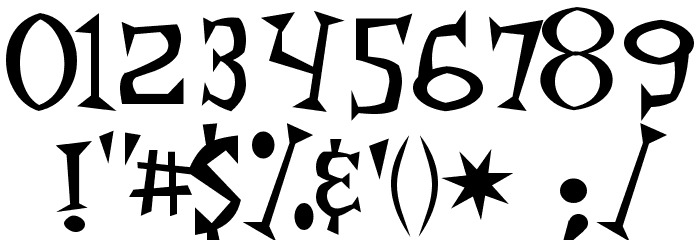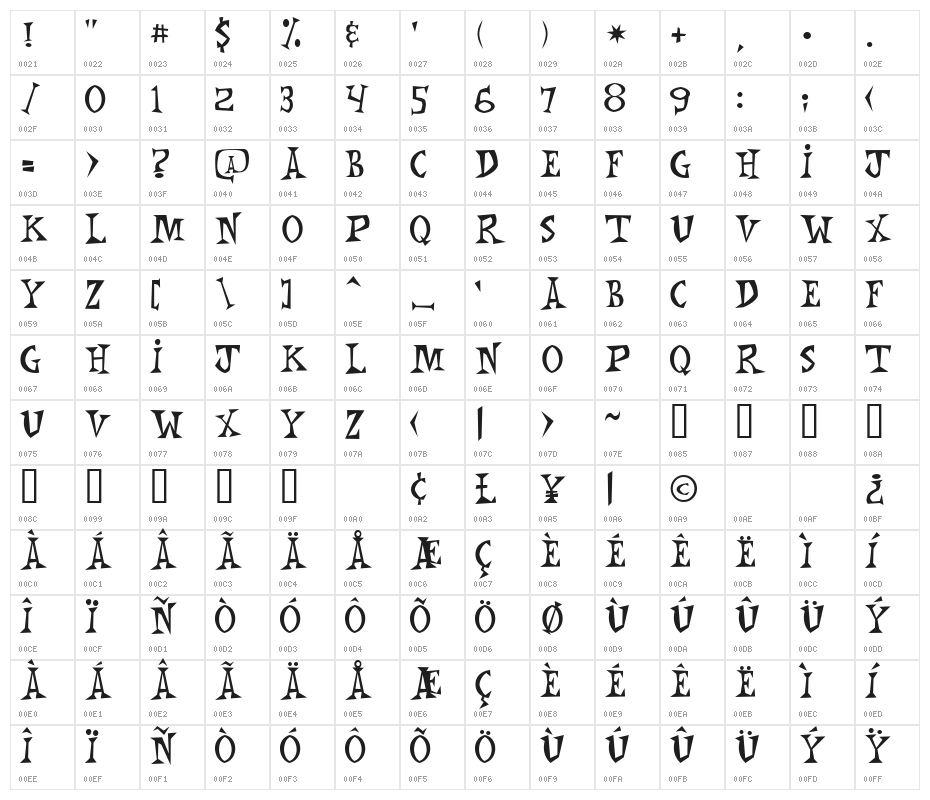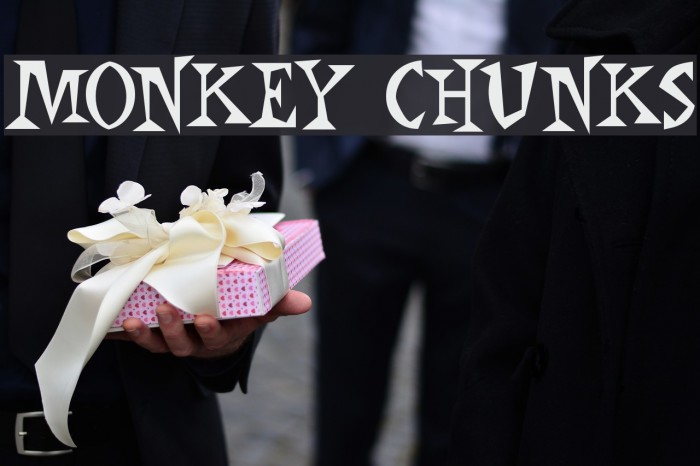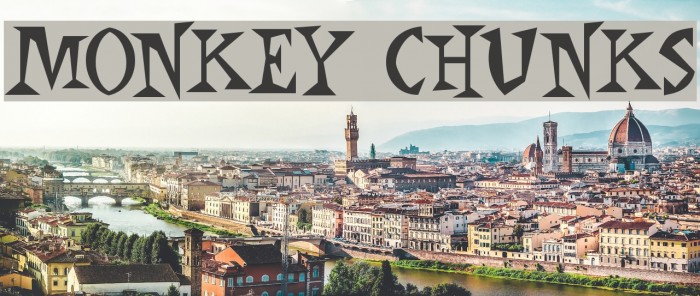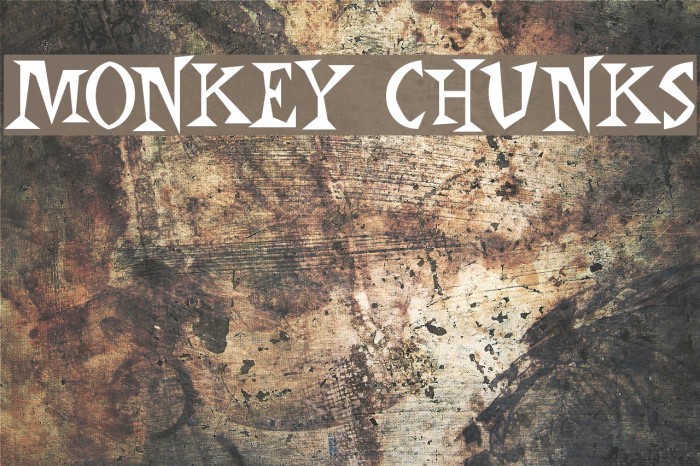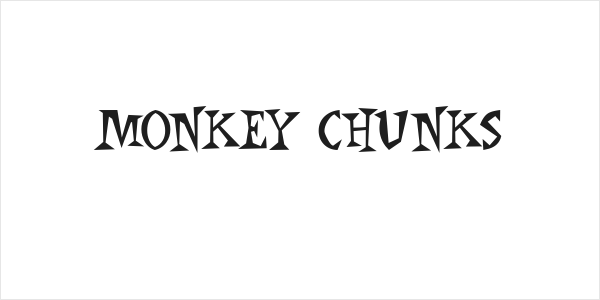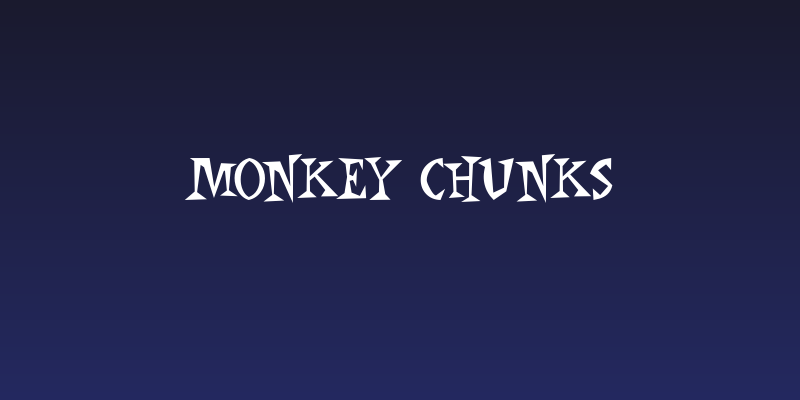
Monkey Chunks Font
Monkey Chunks Description
This font features a bold and dynamic style with sharp, angular edges and a playful, almost whimsical appearance. The characters are highly stylized, with exaggerated serifs and unique geometric shapes that give it a distinctive look. The uppercase and lowercase letters maintain a consistent design, providing a cohesive and unified appearance. The numbers and special characters follow the same design principles, ensuring versatility across different uses. Its boldness and unique style make it stand out, perfect for projects that require a strong visual impact.
| Proposed Projects | Ideal for posters, logos, video game titles, and any project needing a bold, eye-catching typeface. |